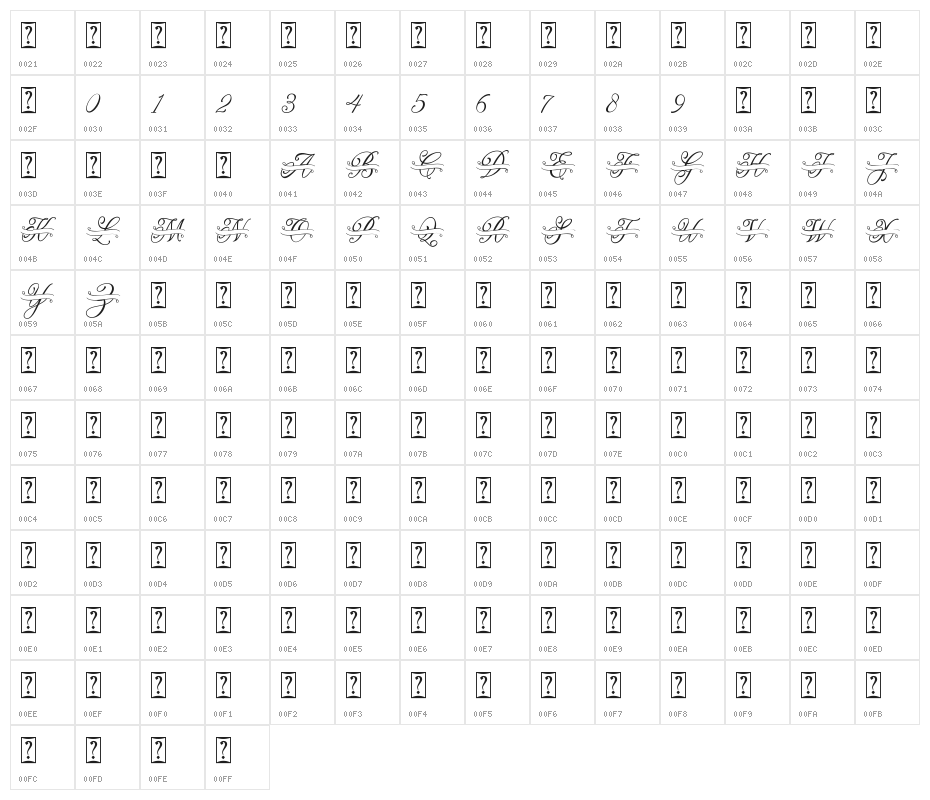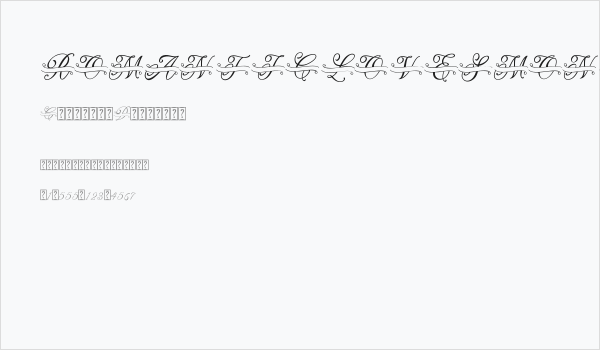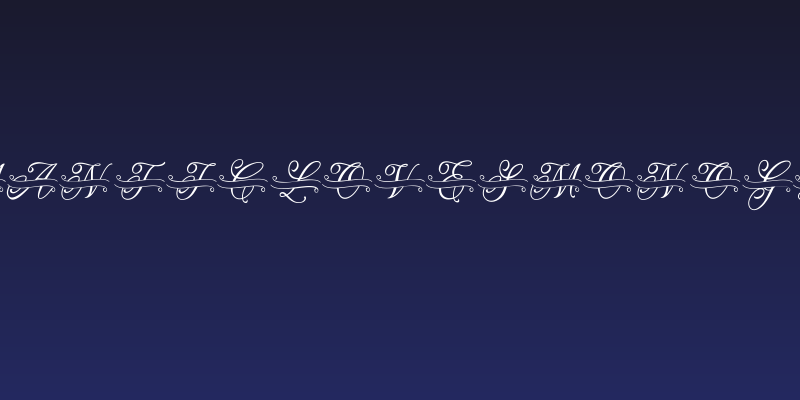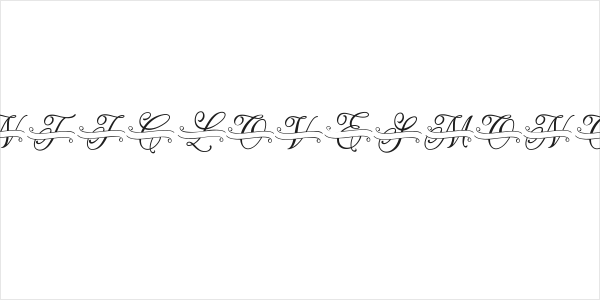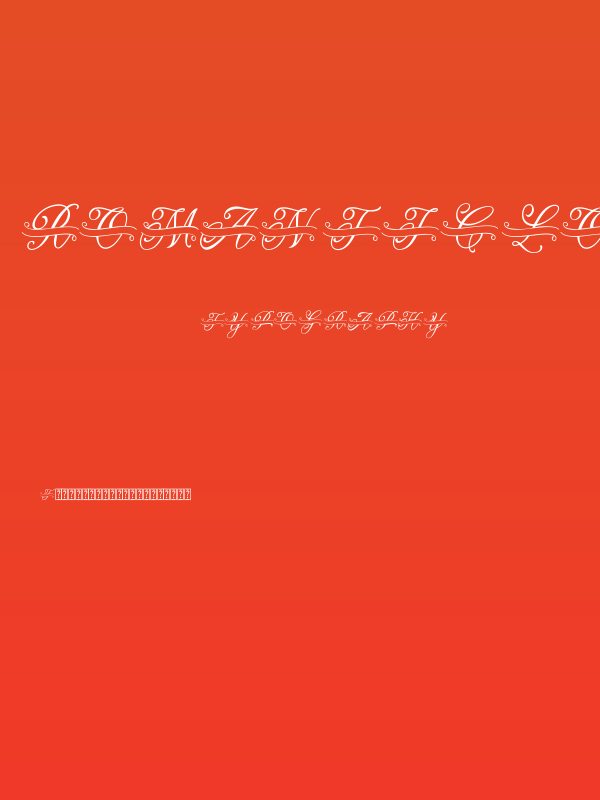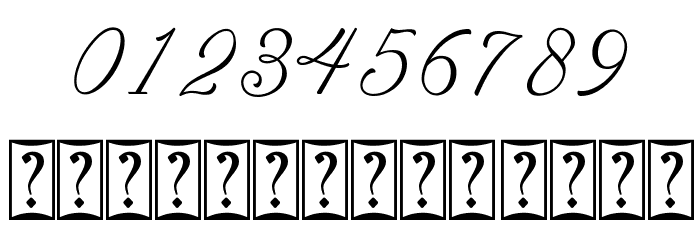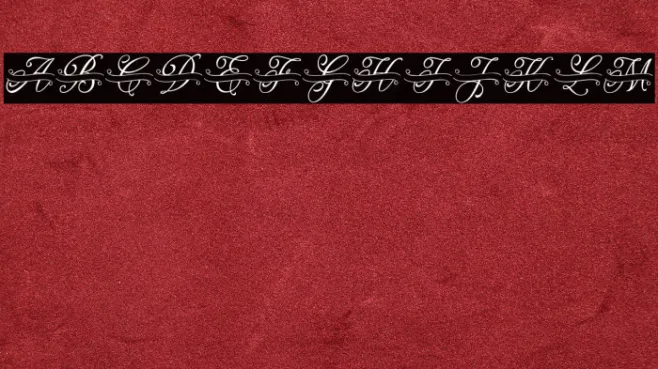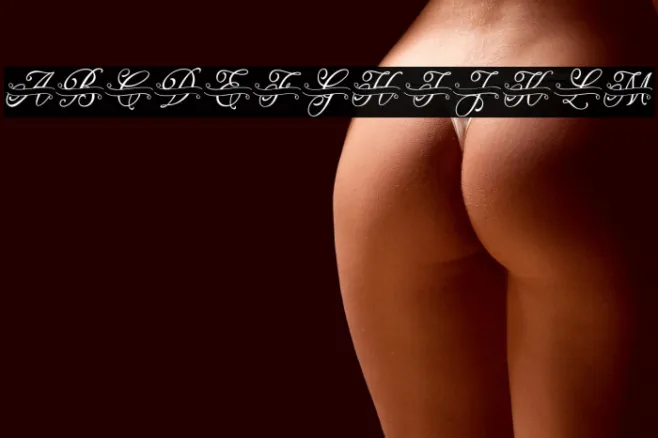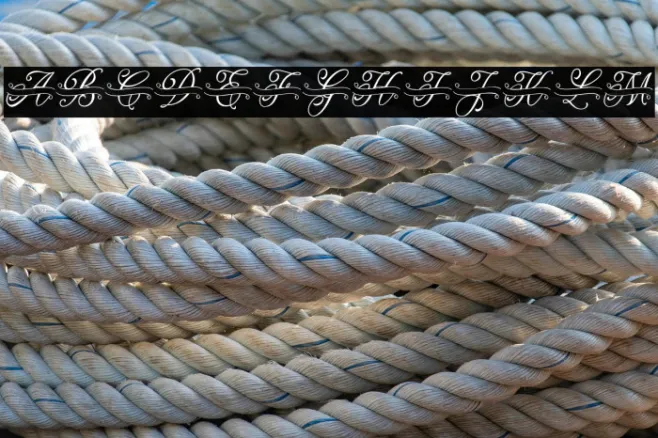
ROMANTIC LOVES MONOGRAM Font
ROMANTIC LOVES MONOGRAM Description
This font exudes elegance and sophistication with its intricate and ornate design. Each uppercase letter is adorned with delicate flourishes and swirls, creating a sense of romance and charm. The numbers maintain a classic and graceful appearance, complementing the overall aesthetic. The font's decorative nature makes it ideal for formal and luxurious projects, where a touch of elegance is desired. Its unique style is reminiscent of vintage calligraphy, offering a timeless appeal that can enhance invitations, monograms, and other high-end design projects.
| Use Case | Logos, Invitations, Monograms |
| Proposed Projects | Ideal for wedding invitations, monograms, luxury branding, and elegant stationery. |